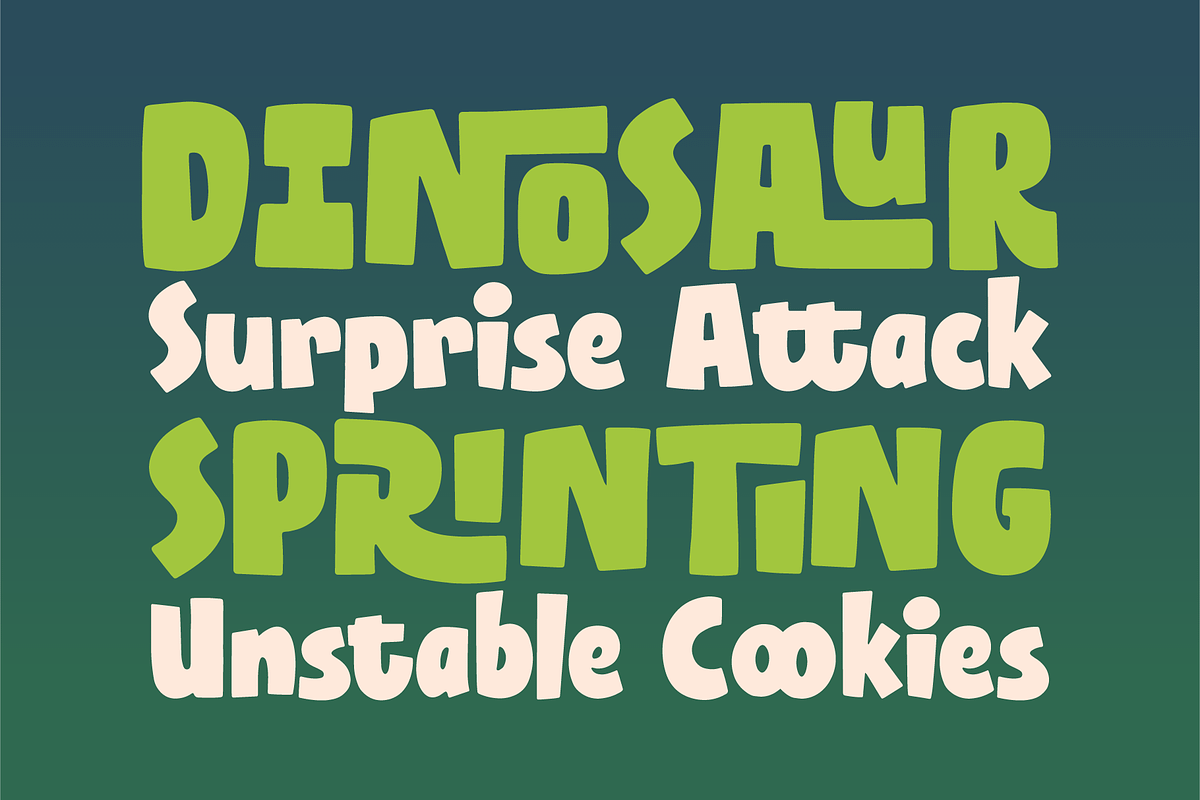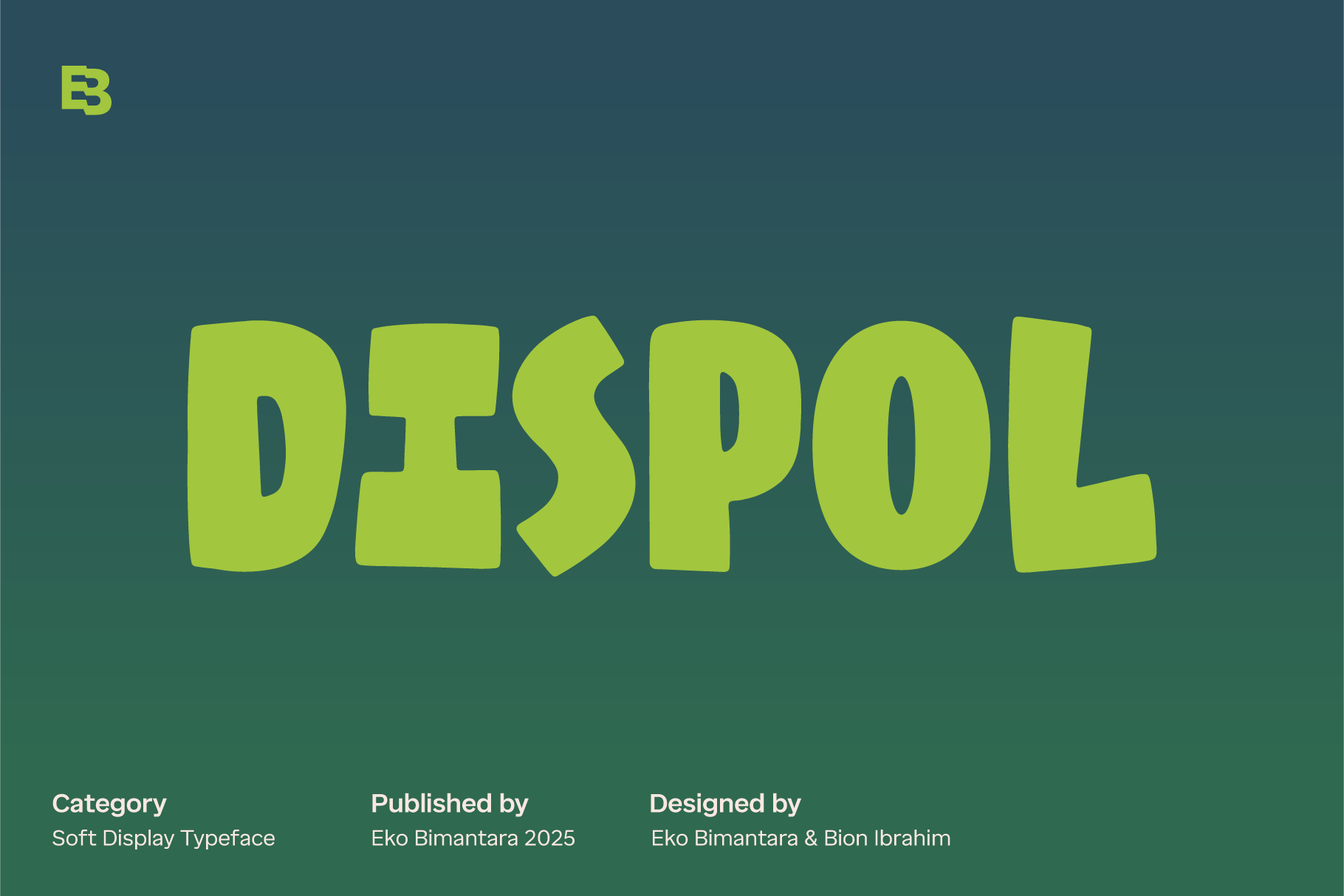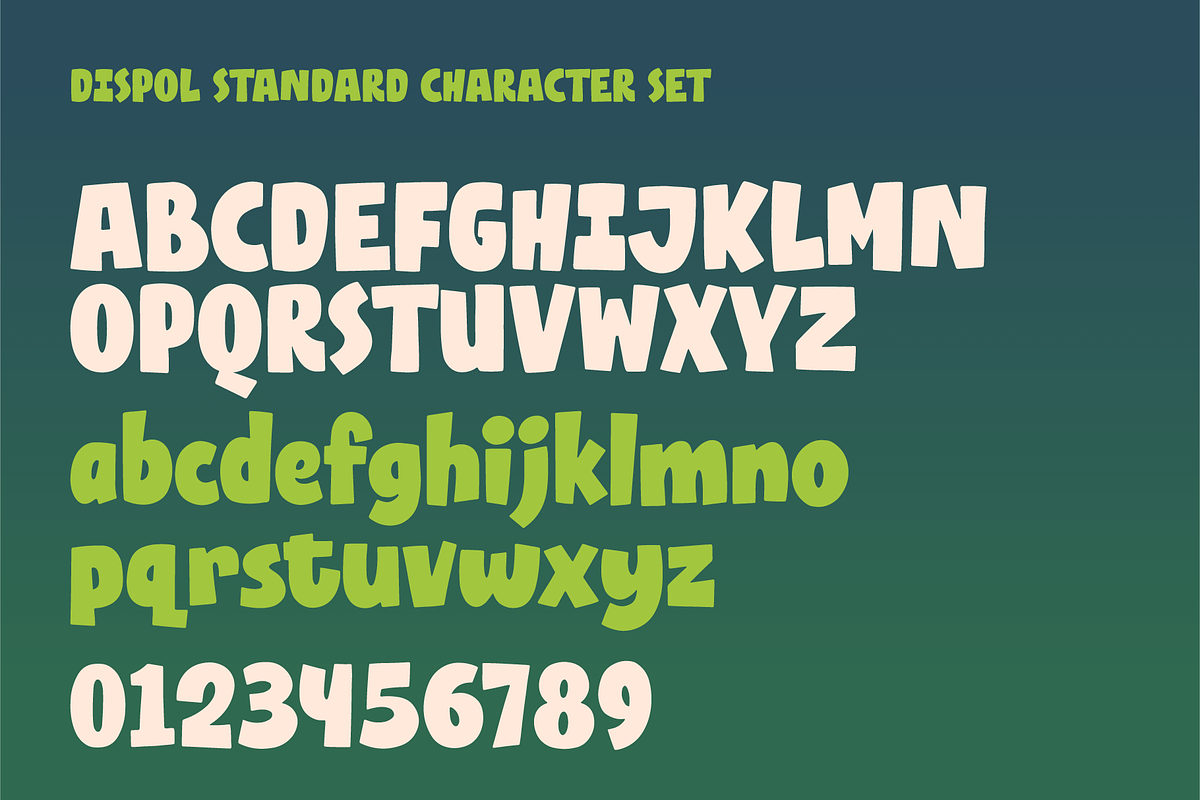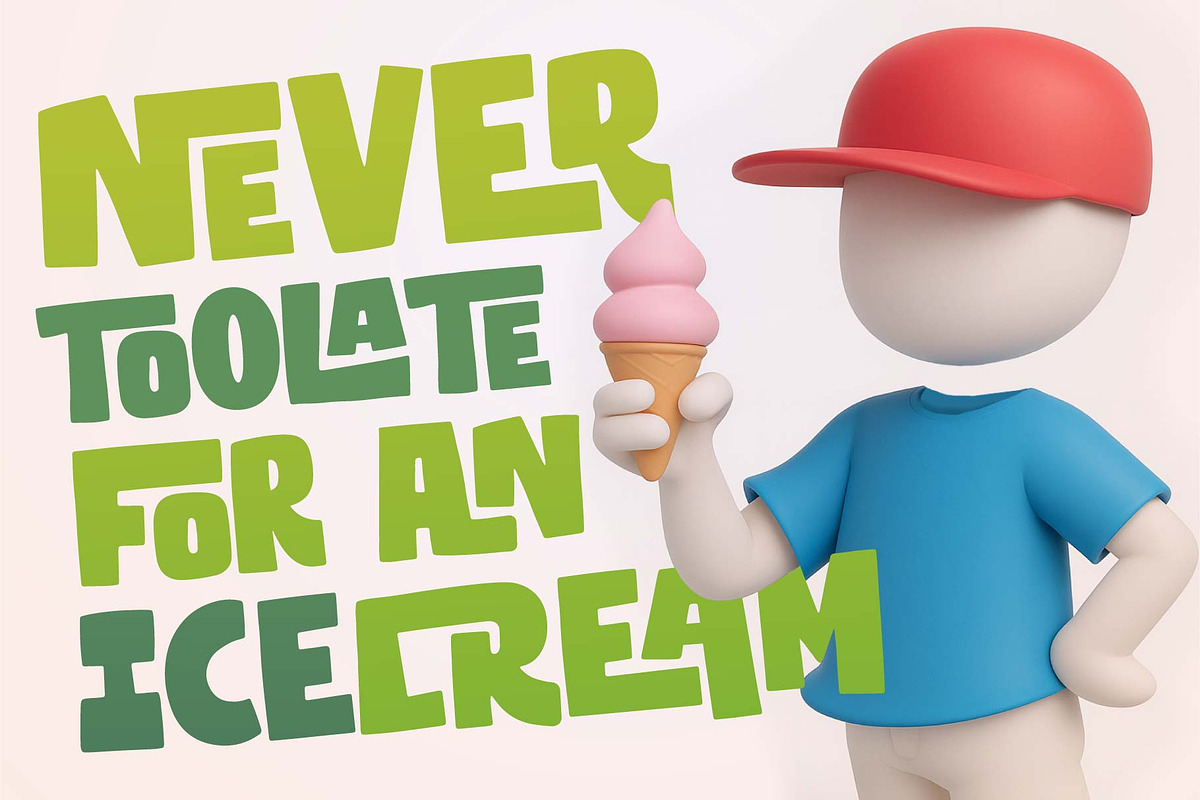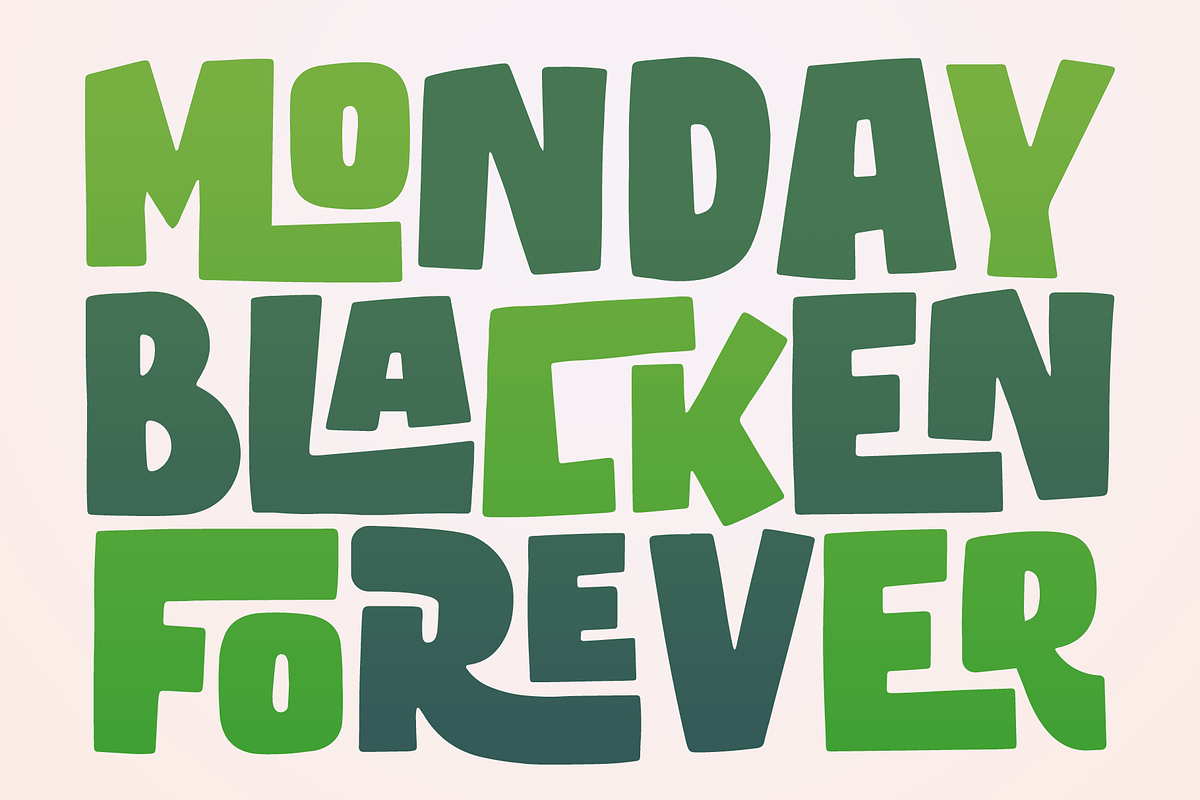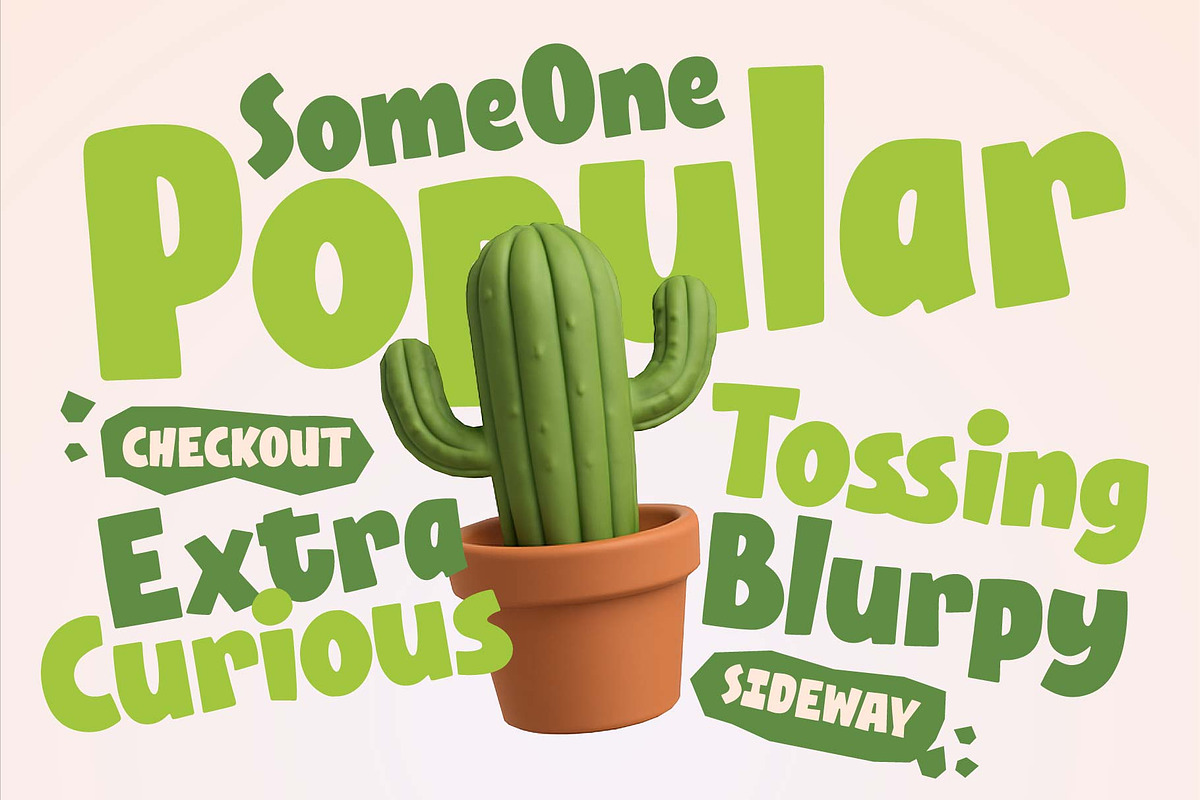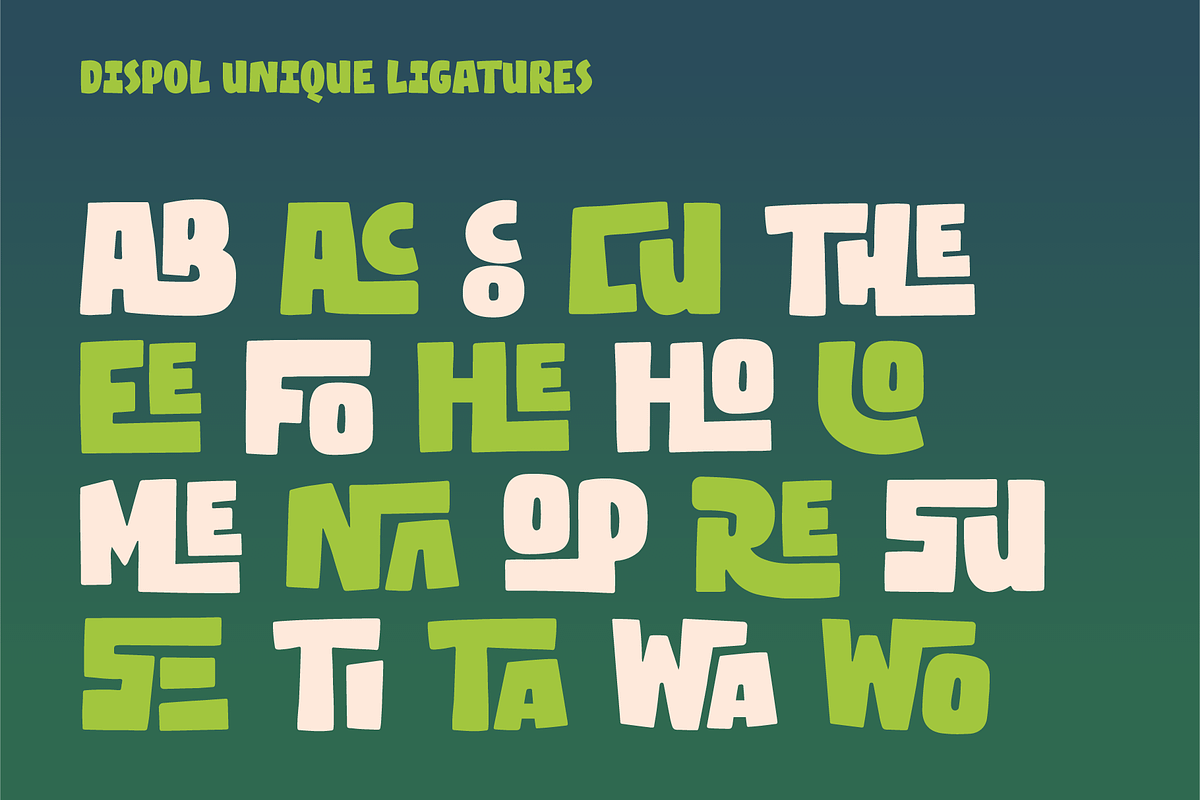
Dispol; Bold DIsplay Font
Dispol is a soft, fun display font designed to bring a friendly and approachable character to any project. Its unique letterforms and playful curves create a warm visual personality, making it stand out in both digital and print applications. One of its key features is the extensive collection of engaging ligatures that add a dynamic and expressive touch to your typography. Ideal for large display titles, Dispol shines in designs related to food, children’s themes, and other cheerful concepts, offering a delightful balance of creativity and readability.